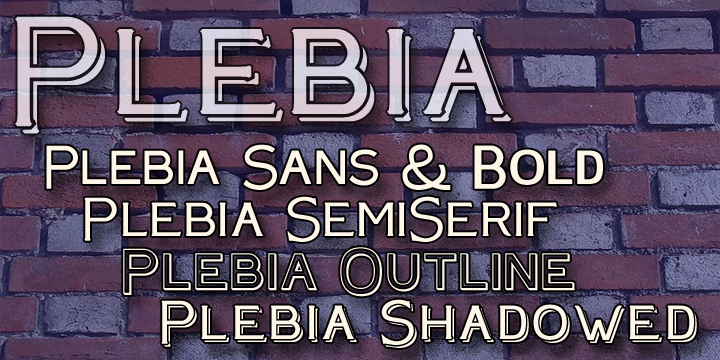
Plebia
Plebia is a retro font family. This typeface has six styles and was published by Greater Albion Typefounders.
The 30’s 40’s and 50’s contribute many elegant and clean font familiesx to the design canon.  Plebia-the plain font- is Greater Albion’s homage to that elegant design canon.  The basic design is offerfed in a range of decorative forms chosen to preserve this basic simplicity: shadowed, outline and a subtle semi-serif.  Use this font in signposts, labels and posters, anything that needs to get its message across with impact regardless of visula distance.  Bring back the spirit of the middle years of the last decade.